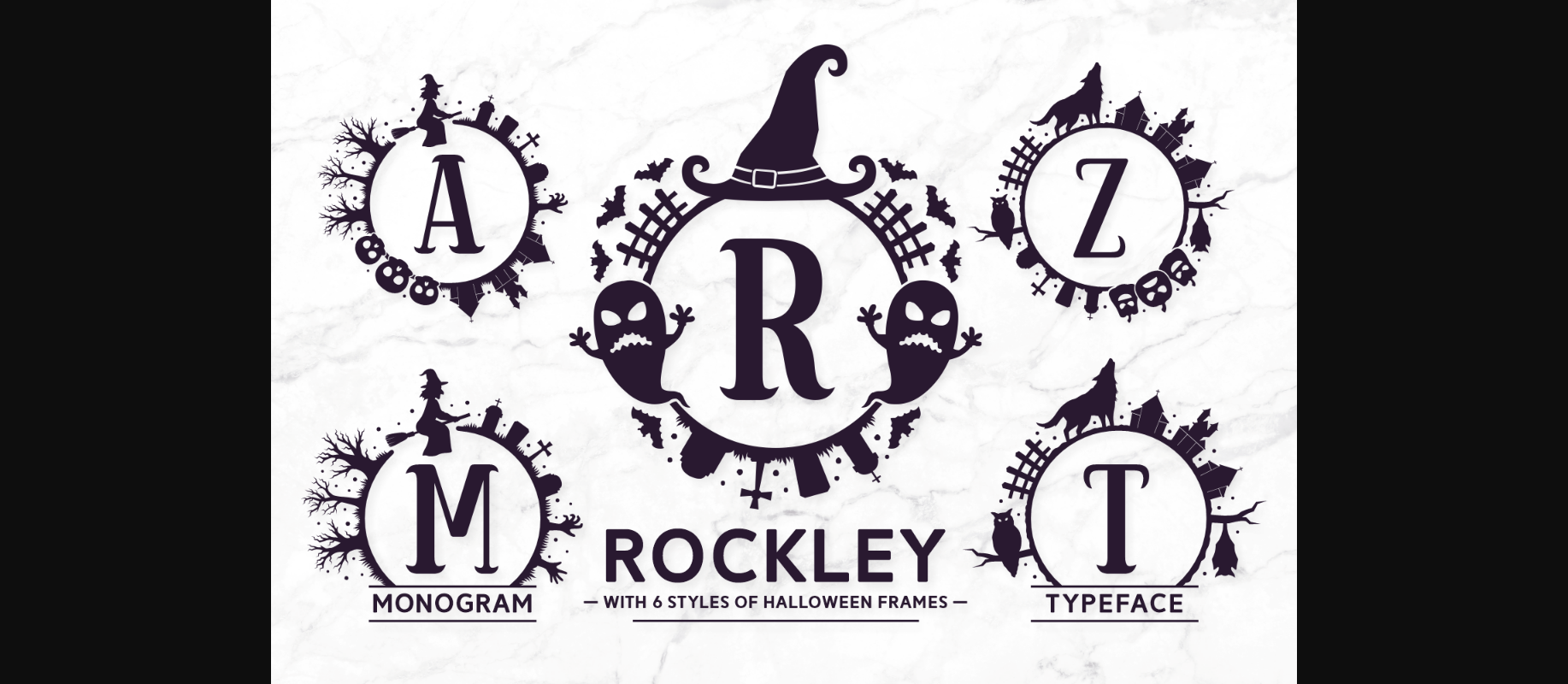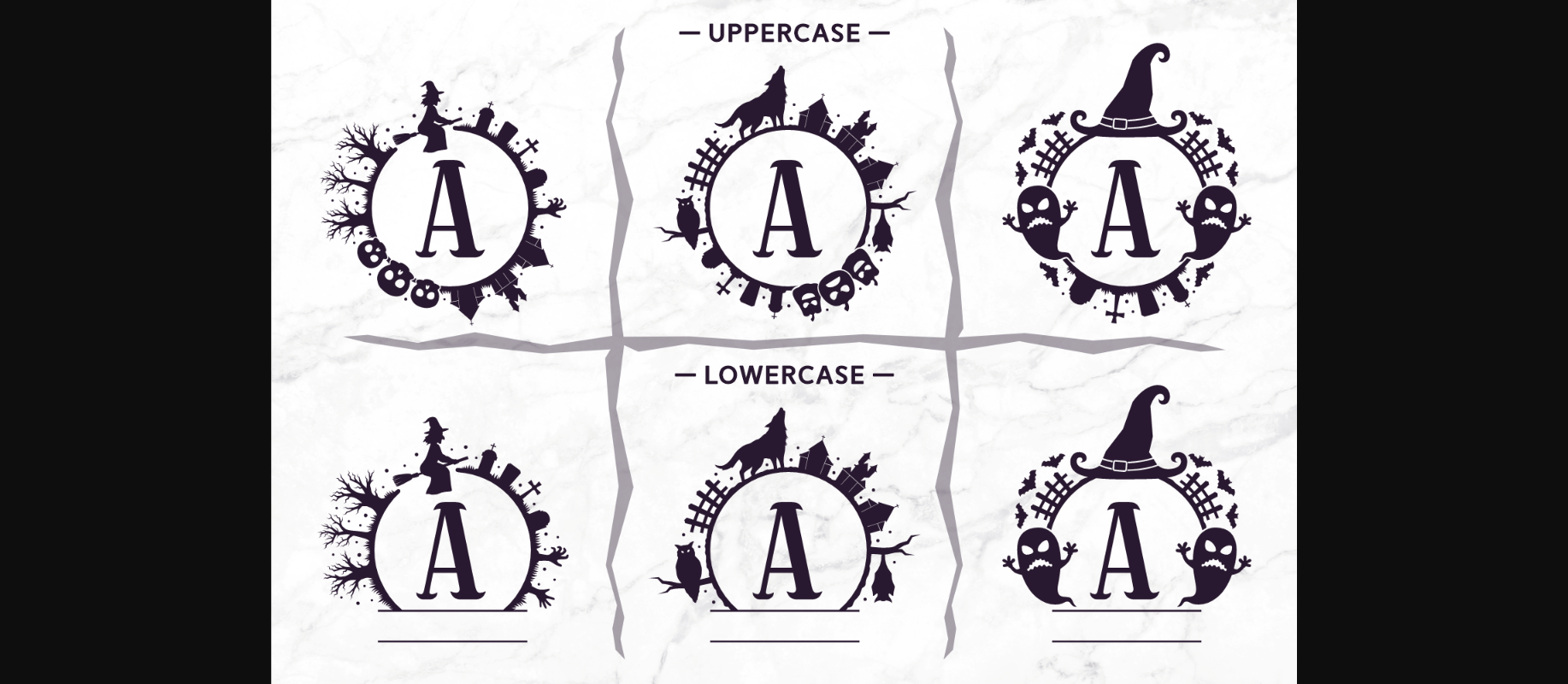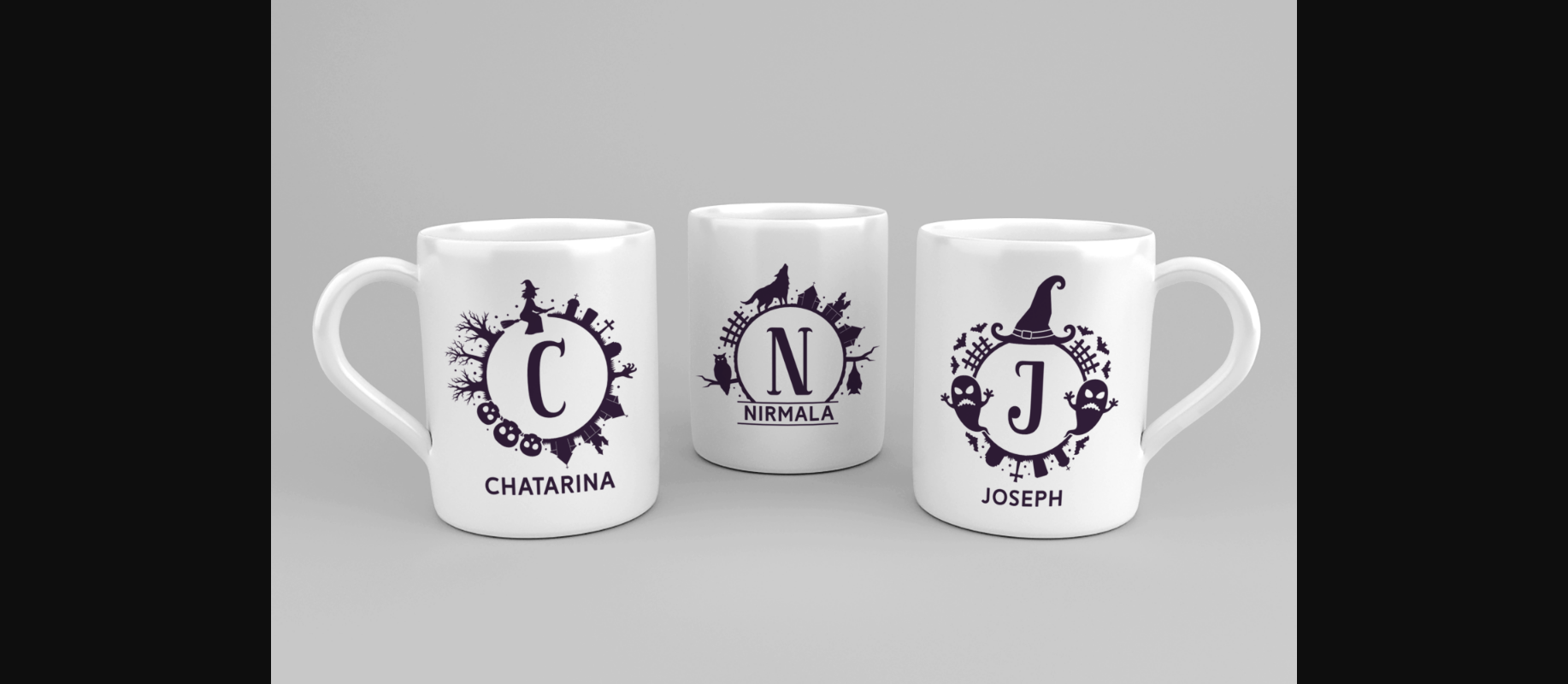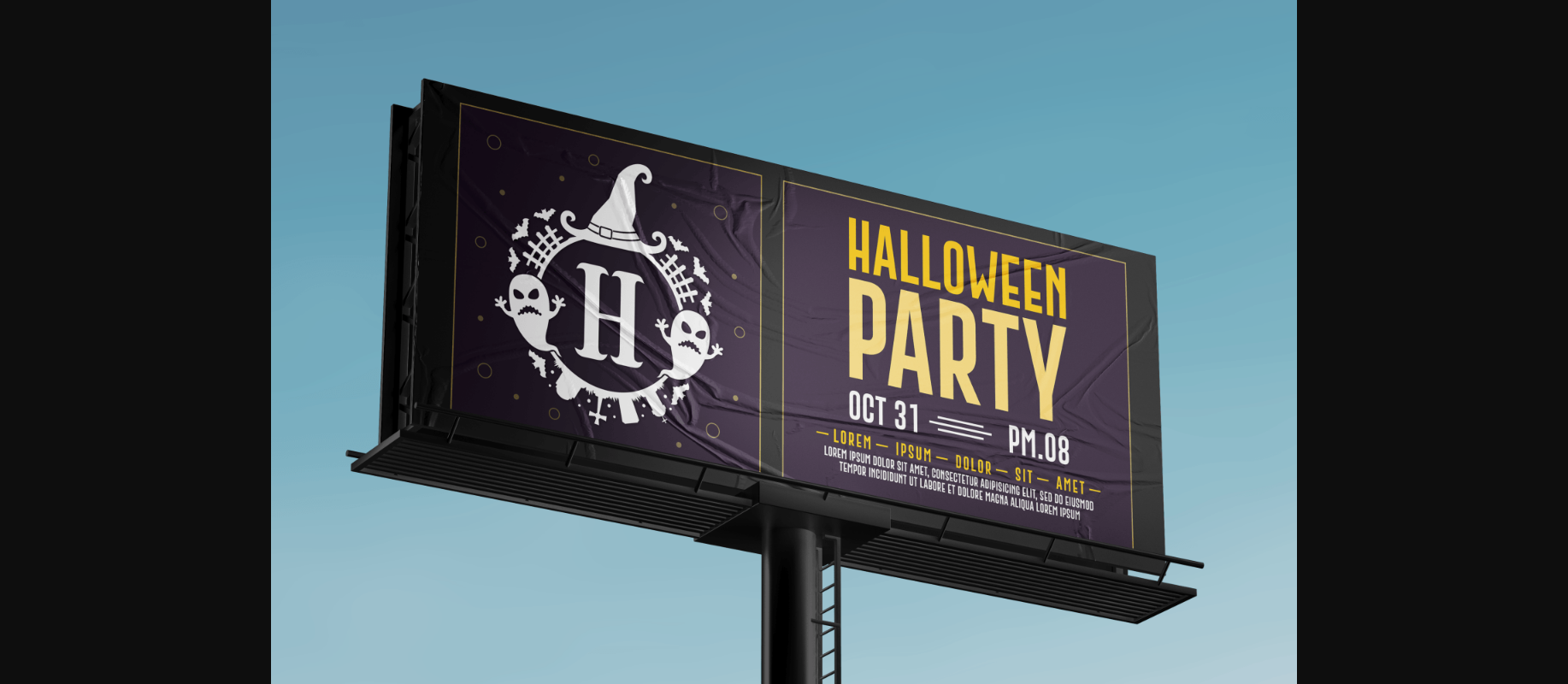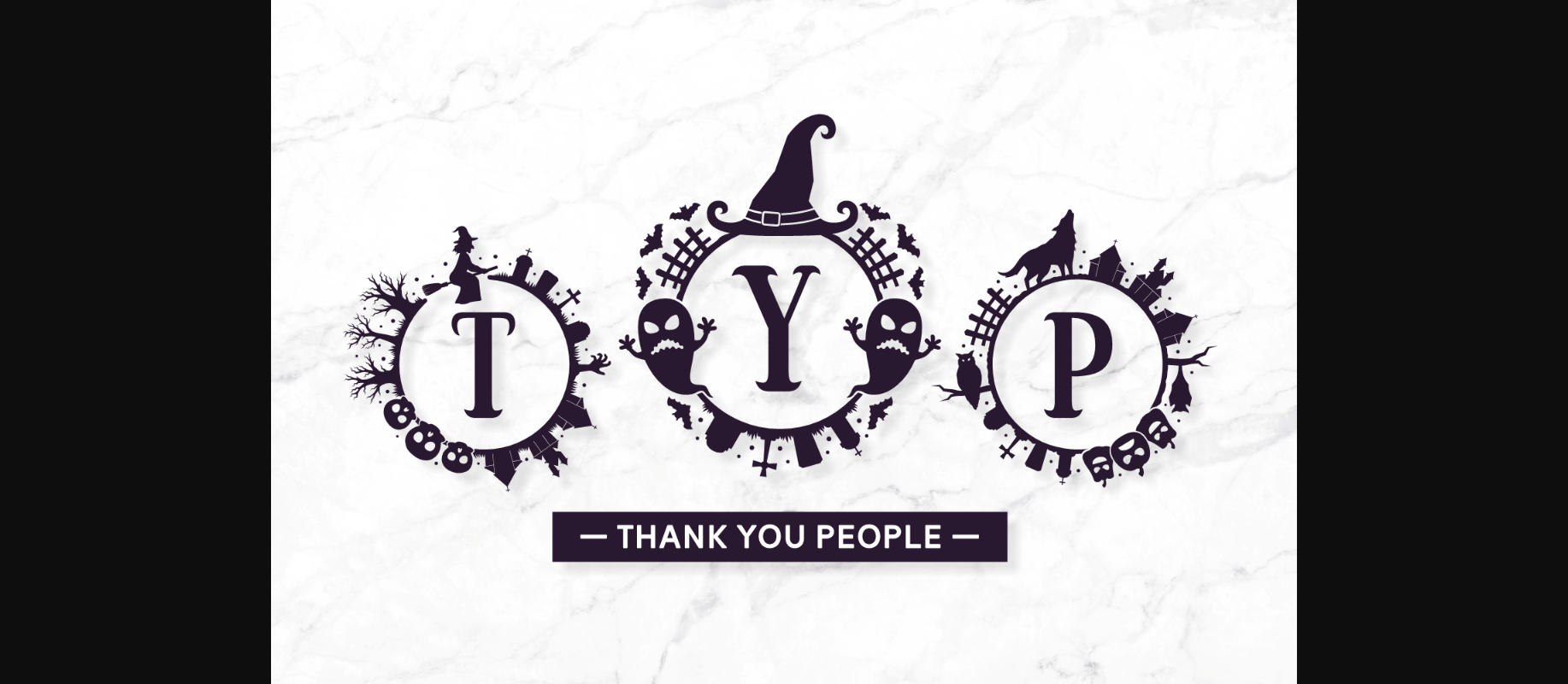
Rockley Font
About Rockley Font
Rockley is a beautiful decorative font specifically created to level up any of your Halloween design projects.
Rockley features clean letters in a unique Halloween themed silhouette frame.